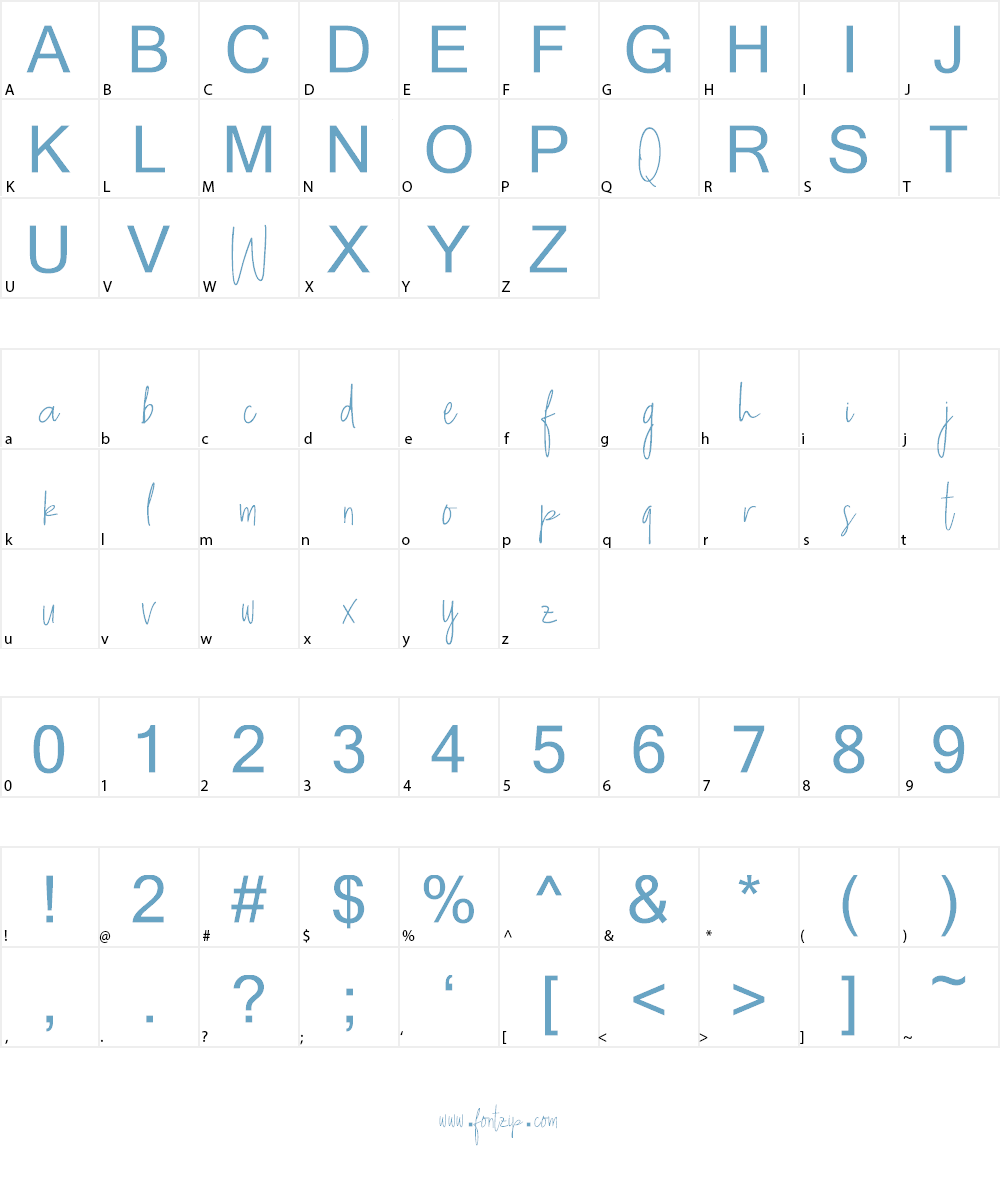
Queen Waffle, a fresh casual handwriting font with the easy feels and loose characters to express the wilderness of young spirit nowadays. Perfectly fit for fashion branding, magazine, logo, lookbook, fashion editorial, etc. Feel the experience to be the center of attention instantly.